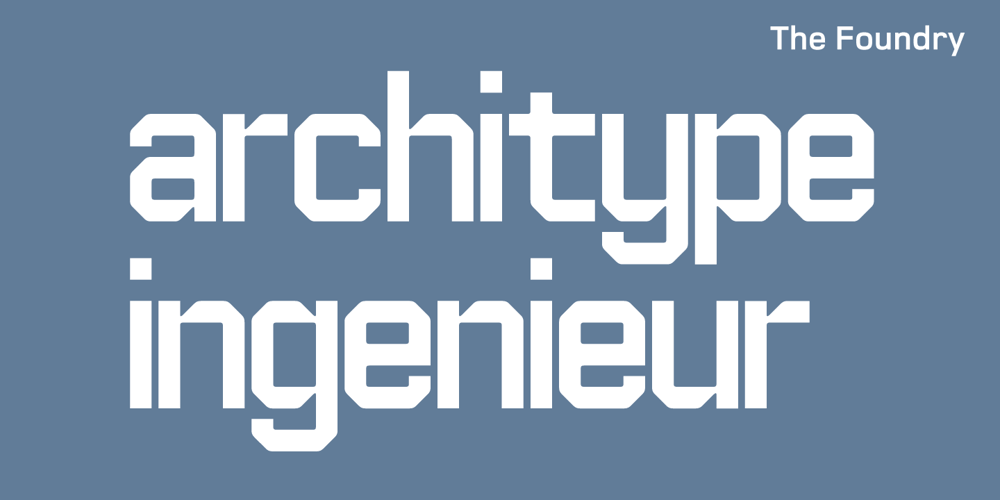
Architype Ingenieur
Architype Ingenieur font
Architype Ingenieur Font Family was designed by Wim Crouwel, Freda Sack, David Quay, Stuart De Rozario and published by The Foundry. Architype Ingenieur contains 4 styles and family package options. Architype Ingenieur was inspired by Wim Crouwel’s late 1950s exhibition catalogues and posters, for which he had created a few geometrically constructed, simplified letterforms. In the 1960 Venice Biennale Dutch entry poster, he drew grid-based letters with 45-degree angles for ‘olanda’, the style influenced by his boyhood fascination with naval lettering. A subtle variation appeared in the Stedelijk Museum catalogue for painter Jean Brusselmans. Several dot matrix versions followed. The themes and systems in these early letterforms are encapsulated in this new four weight family Architype Ingenieur.